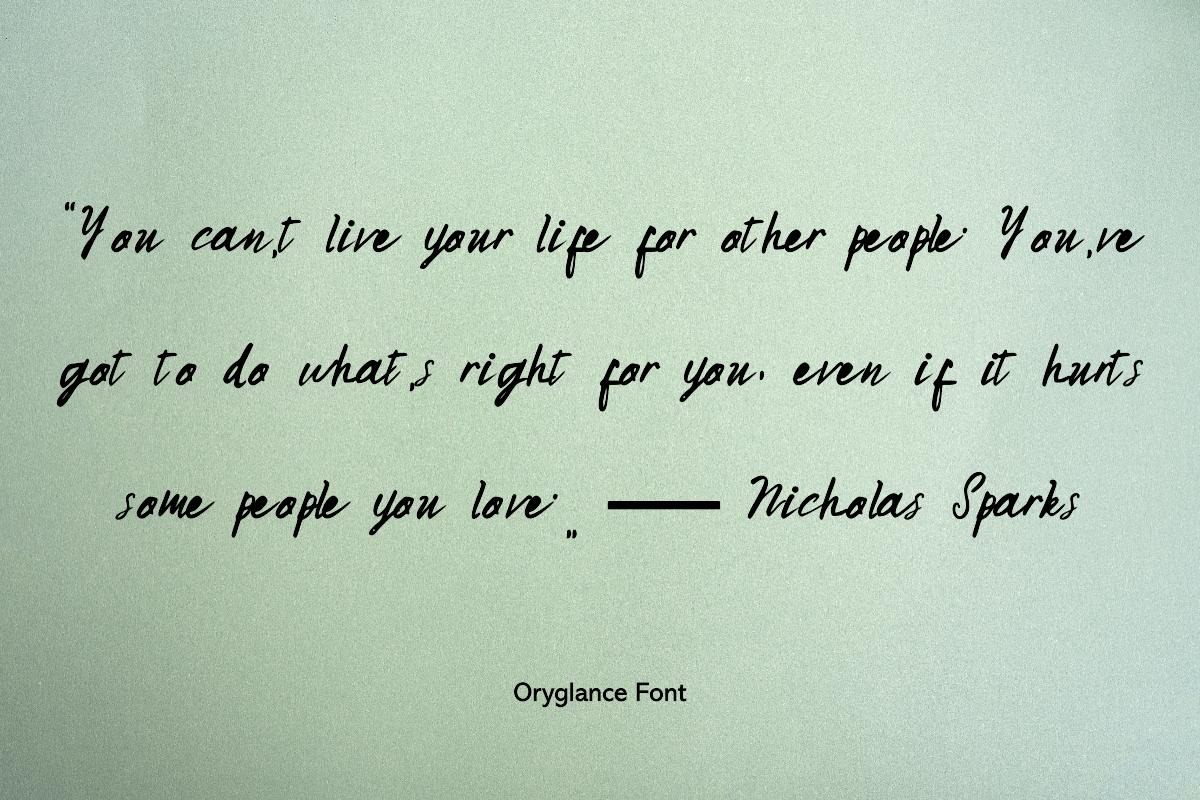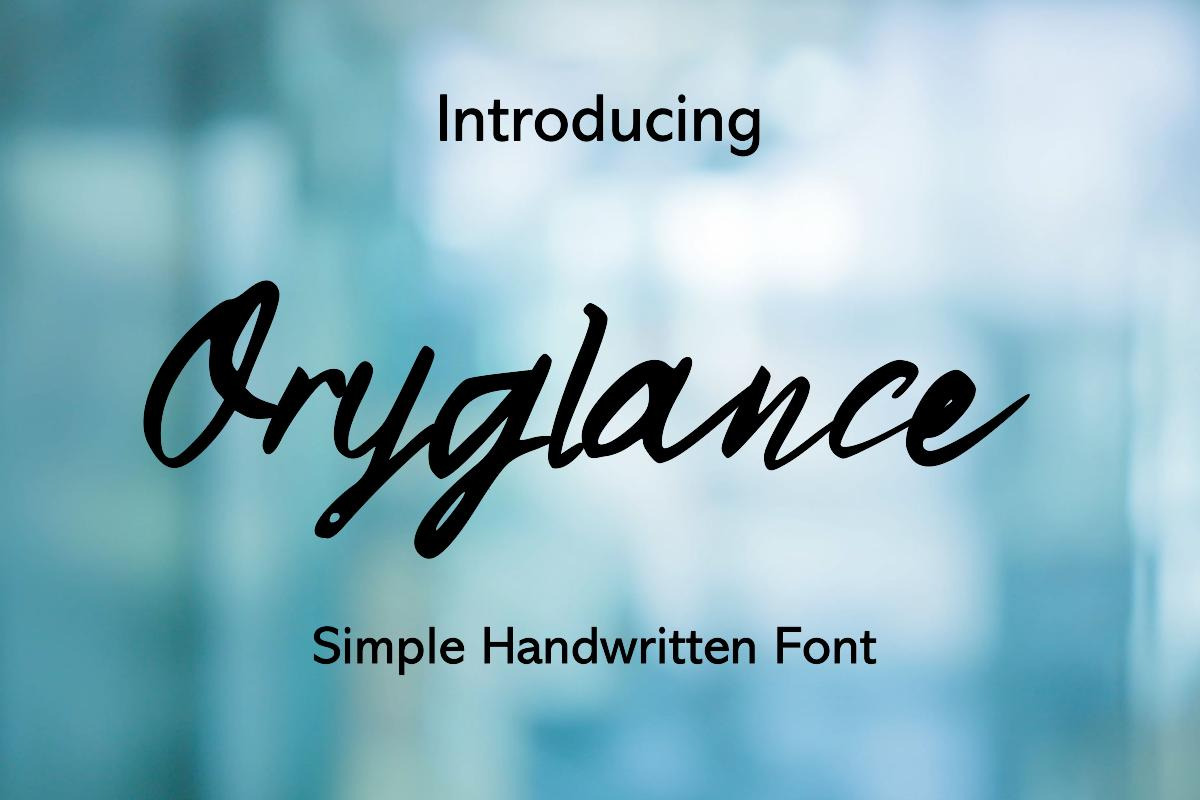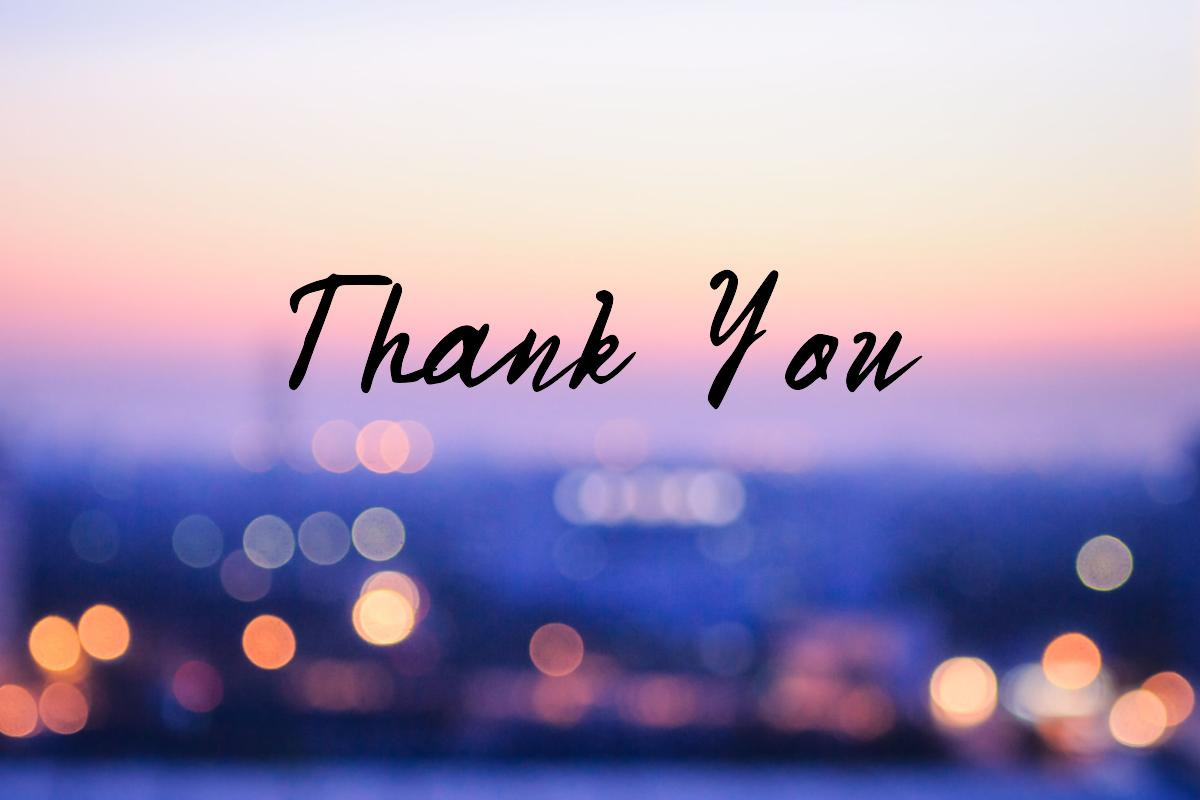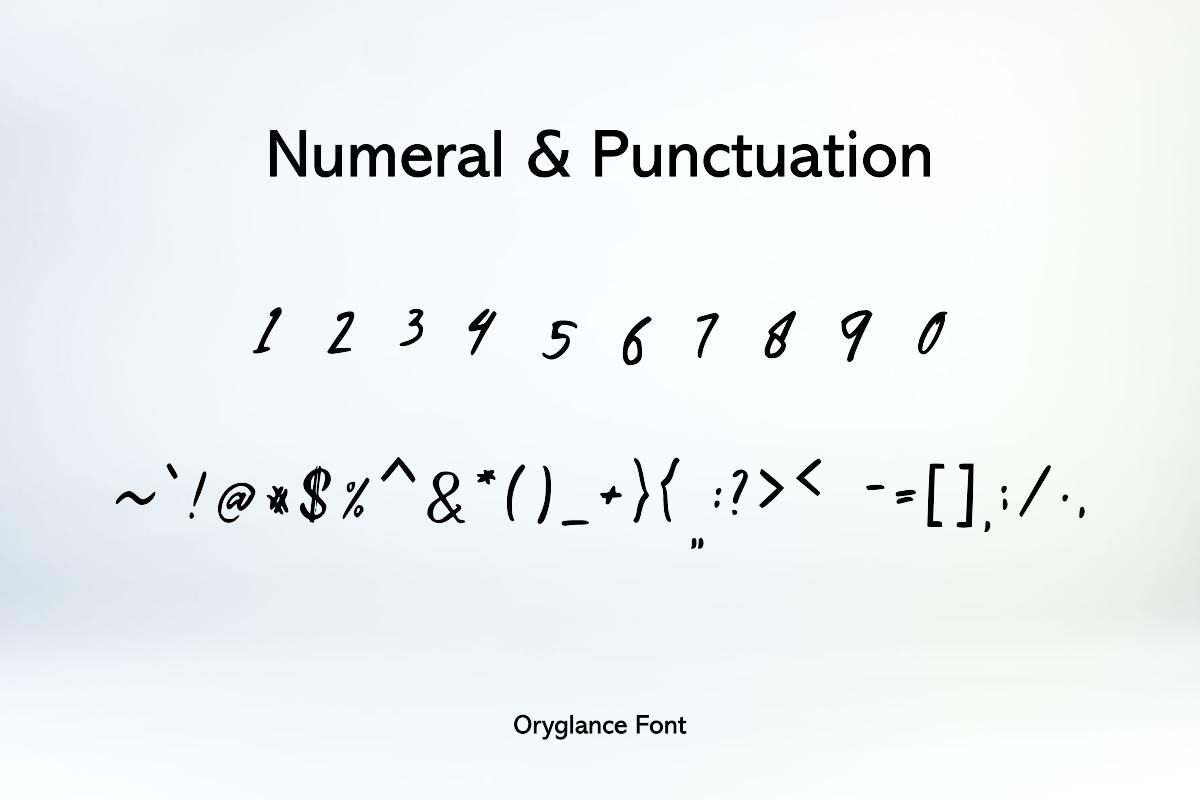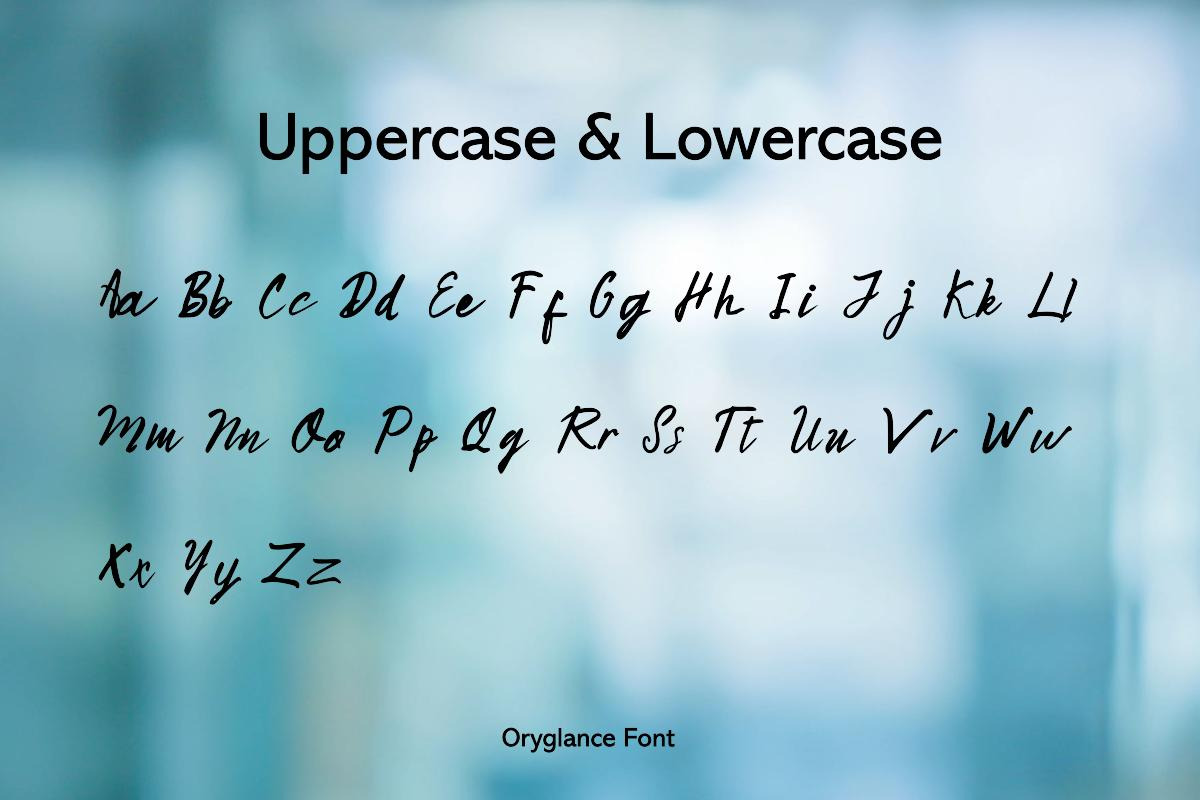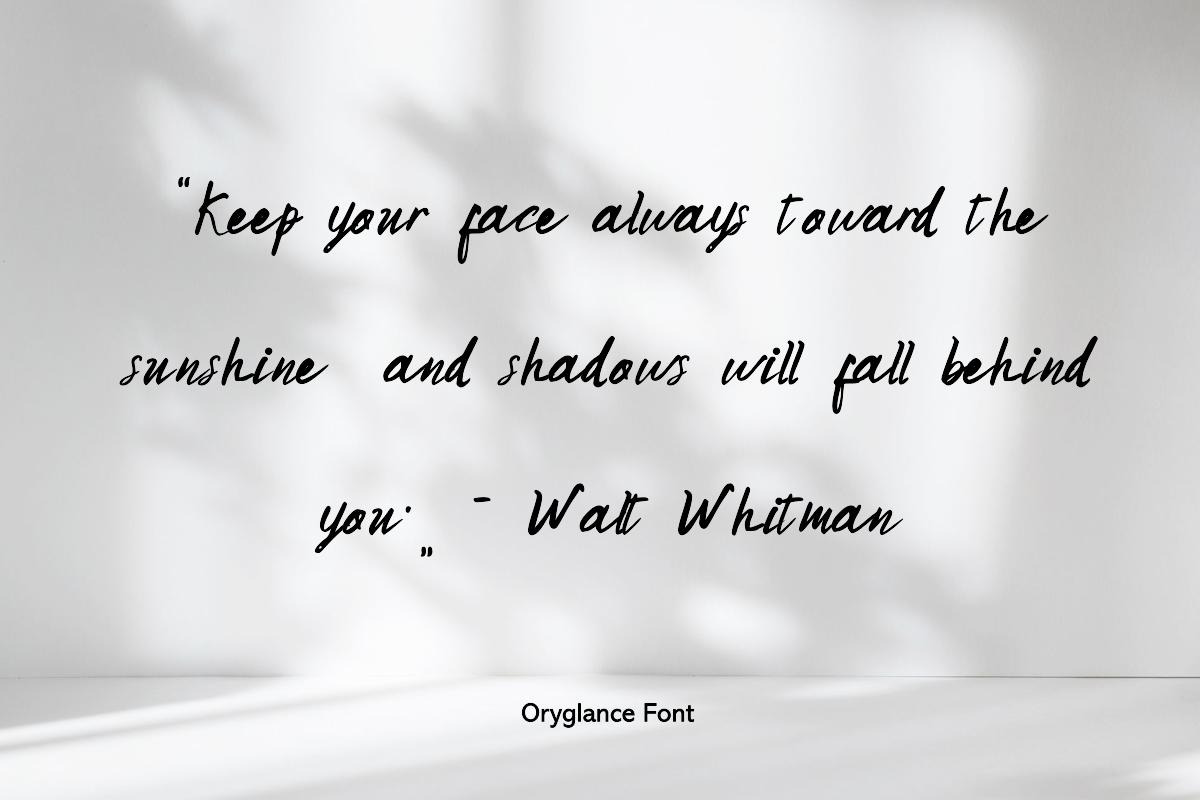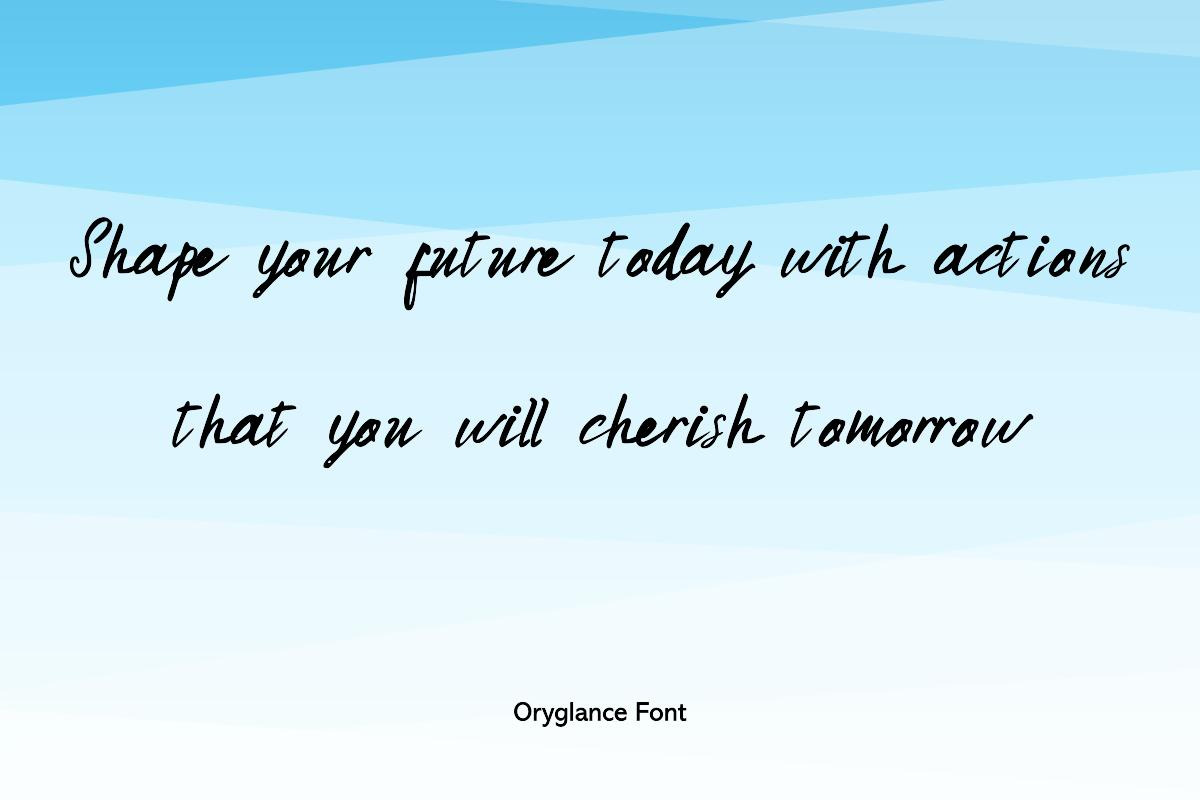
Oryglance Hand-Lettering Font
Discover 'Oryglance' – The Essence of Handcrafted Elegance
'Oryglance' is a handwritten font that embodies the artistry of individual expression. Its unique strokes and crafted elegance bring a bespoke quality to any digital project. This font is not just a typeface; it's a personal statement, a signature that makes every word stand out with its own story.
- Elegant Branding: Give your brand a voice that whispers luxury and bespoke craftsmanship.
- Personalized Stationery: From thank you cards to letterheads, Oryglance adds a touch of personal sophistication.
- Creative Portfolios: Let your work shine with a font that reflects your unique artistic vision.
- Storytelling: Narrate your stories with a font that adds a personal and intimate touch to every character.
With 'Oryglance', your designs will not just be seen—they will be felt and remembered. It's more than a font; it's the essence of your creative vision brought to life.